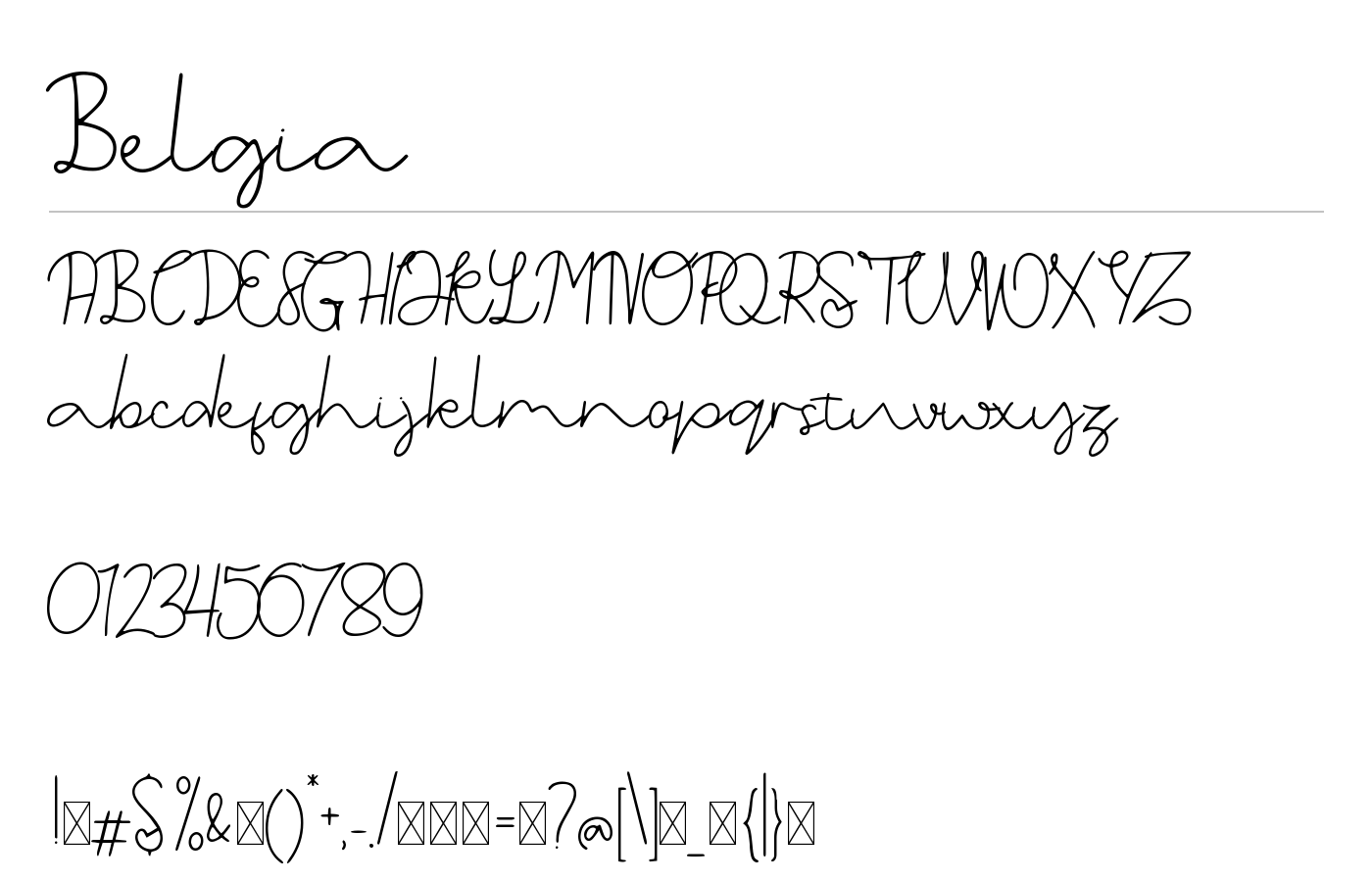
Belgia is a delicate, handwritten script font characterized by its thin, airy strokes and elegant cursive flow. Its tall x-height and playful loops give it a friendly yet sophisticated personality, making it perfect for creative projects that need a personal, whimsical touch, such as invitations, branding, or artistic headlines. The font’s light and graceful appearance work best for decorative uses where charm and style are key.
Belgia Font